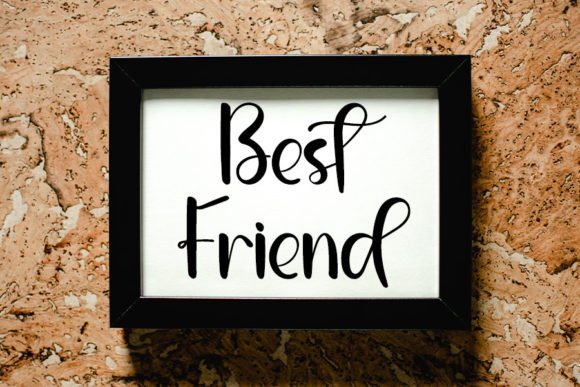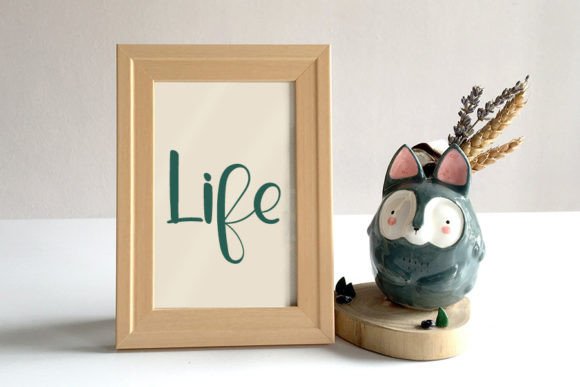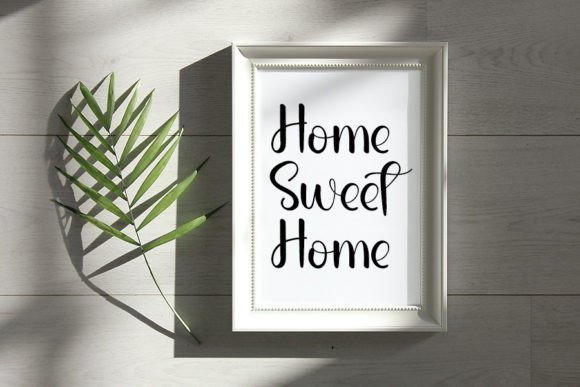
Introducing Double Handmade Font: Elevate Your Designs with Elegance and Personality
In the world of design, fonts play a crucial role in conveying the tone and aesthetic of a project. For those seeking a touch of elegance and personalization, the Double Handmade font is an exceptional choice. This unique and elegant handwritten font is perfect for a variety of designs that require a distinctive, personalized style. From wedding invitations and thank you cards to greeting cards, logos, and more, Double Handmade Font can elevate your creations to new heights.
The Charm of Handmade Fonts
Handmade fonts, like Double Handmade, offer a level of warmth and character that is hard to achieve with standard fonts. They bring a sense of human touch and uniqueness to a design, making it stand out in a crowded digital landscape. The imperfections and variations in a handmade font give it a natural, organic feel that resonates with viewers and can evoke emotions. Whether you’re a designer looking to offer something special to your clients or a crafter seeking to add a personal touch to your projects, a handmade font can be a game-changer.
Features of Double Handmade Font
Double Handmade Font is not just any handwritten font; it boasts several features that make it exceptionally versatile and user-friendly:
- Elegant and Unique: The font’s elegant strokes and unique character set make it perfect for designs that require a touch of sophistication and personality.
- Highly Readable: Despite its elegant nature, Double Handmade Font remains highly readable, making it suitable for both headings and body text.
- Multilingual Support: Catering to a global audience, the font supports multiple languages, ensuring that your designs can reach and resonate with a wide range of people.
Applications of Double Handmade Font
The versatility of Double Handmade Font means it can be used in a multitude of design projects. Here are some popular applications:
- Wedding Invitations: Add a touch of romance and elegance to your wedding invitations, save-the-date cards, and wedding stationery.
- Greeting Cards: Whether it’s a birthday, anniversary, or get-well card, Double Handmade Font can add a personal and heartfelt touch.
- Logos and Branding: For businesses looking to establish a personal brand identity, this font can help create a unique and memorable logo.
- Thank You Cards: Express gratitude in style with beautifully designed thank you cards that leave a lasting impression.
- Social Media Graphics: Stand out on social media with custom graphics, quotes, and posts that showcase your personality or brand’s character.
Tips for Using Double Handmade Font
To make the most of Double Handmade Font, consider the following tips:
- Pair with Complementary Fonts: For maximum impact, pair Double Handmade Font with simpler fonts to create contrast and hierarchy in your design.
- Experiment with Colors: The font looks great in a variety of colors, so don’t be afraid to experiment and find the perfect hue that matches your design’s mood.
- Adjust Letter Spacing: For a more customized look, adjust the letter spacing to ensure your text is easy to read and visually appealing.
Double Handmade Font is a versatile and elegant addition to any designer’s or crafter’s toolkit. Its unique charm, readability, and wide range of applications make it an ideal choice for projects that demand a personal touch. By incorporating Double Handmade Font into your designs, you can create stunning, one-of-a-kind pieces that leave a lasting impression. So why settle for ordinary when you can create something extraordinary with Double Handmade Font?